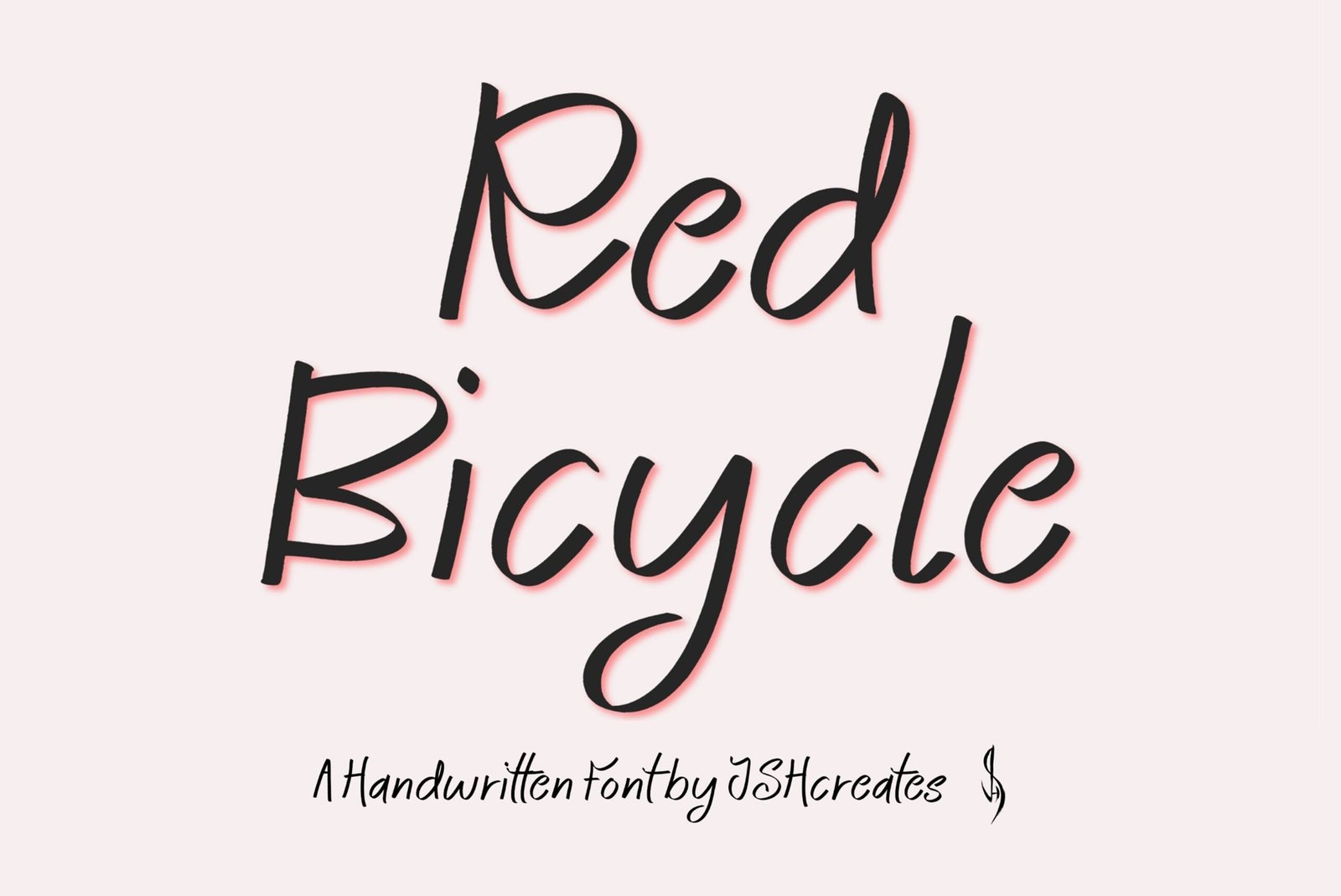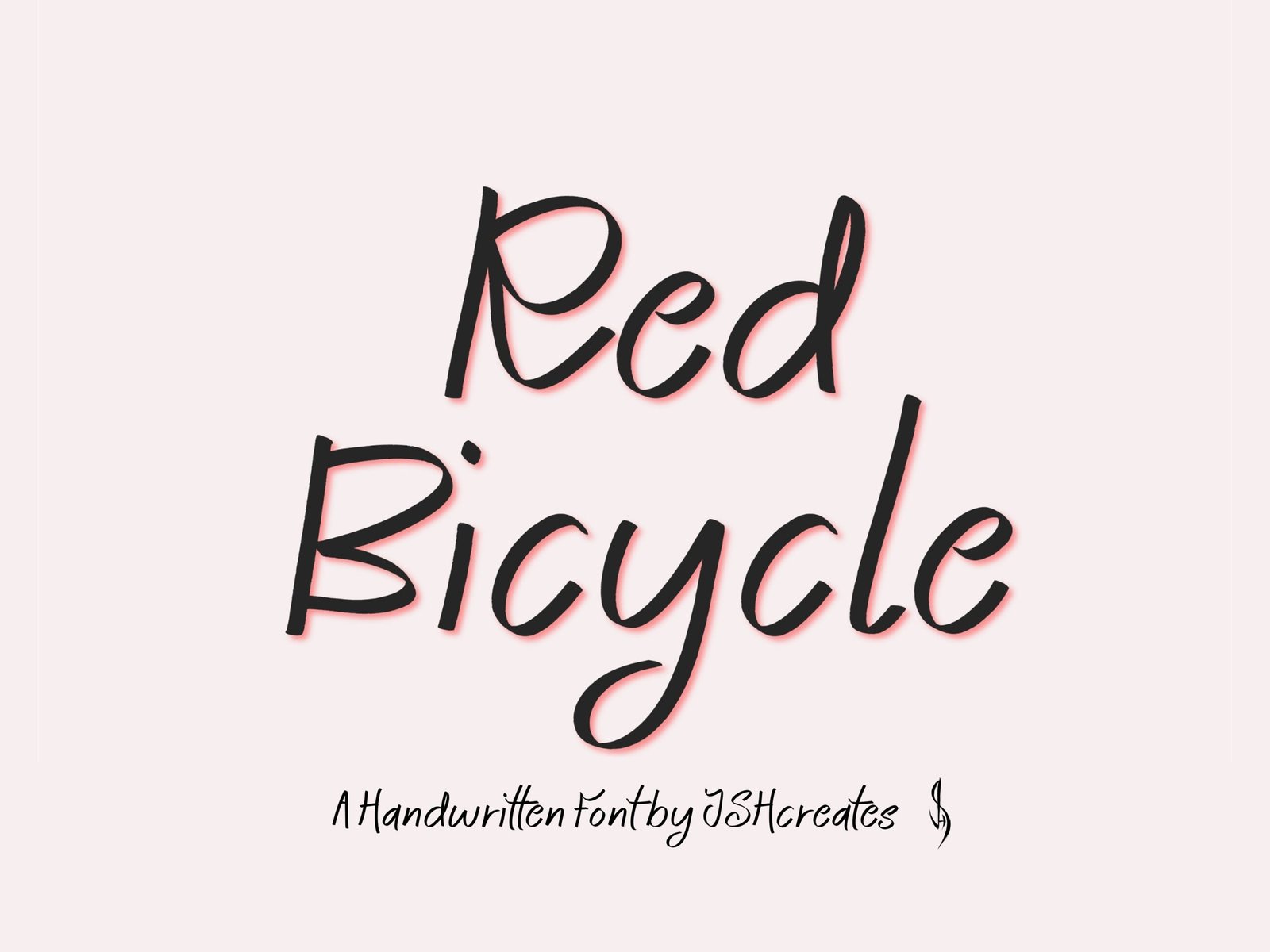
Red Bicycle Font
Handwritten calligraphy font. “Red Bicycle”. Perfect for advertising and display purposes, including banners, book covers, shirts, posters, logos and much more!